Are you captivated by the timeless appeal of Old English lettering? Let’s explore the distinguished elegance this style can add to your next tattoo. Choosing Old English font for your body art reflects your refined taste and respect for language and cultural heritage.
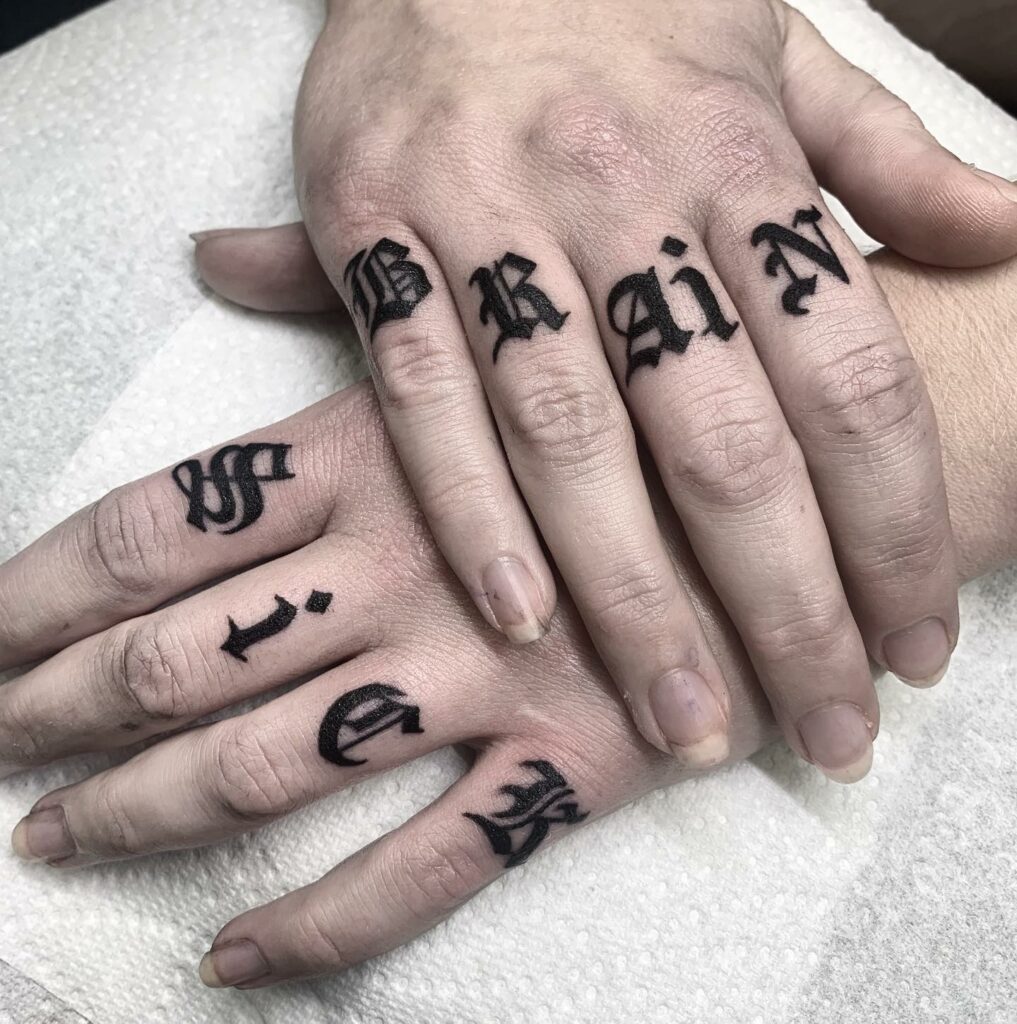
Old English font tattoos remain timeless symbols of grace and sophistication. They bring an enigmatic elegance to your skin. These designs capture the mystique of the past. Letters transform into captivating art.
Old English lettering traces its origins to the 12th century AD. This era was defined by knights, castles, monks, and handwritten manuscripts. Also called “Blackletter,” this font style evokes a sense of historical importance. Blackletter evolved directly from Carolingian Minuscule, the original English lettering style. Initially used mainly for religious texts, its application expanded. It now includes historical documents, grammar books, business records, and legal codes.
Johannes Gutenberg, the printing press pioneer, is surprisingly credited with Blackletter calligraphy’s origin. His invention transformed how we engage with written text. This font spurred Italian artists in the 1400s, resulting in the Gothic style. Blackletter became popular in early 1900s Germany. However, Adolf Hitler later rejected it, deeming it unfit for the supposed German racial superiority, and instead favored the Fraktur font.
In 2025, Blackletter script thrives in the digital realm, easily available to anyone online. Old English tattoos remain a popular choice, adorning arms, legs, and shoulders with timeless appeal. Modern tattoo artists leverage advanced Old English font generators to create custom designs that perfectly capture their clients’ visions.
Old English Font Tattoos With Butterfly
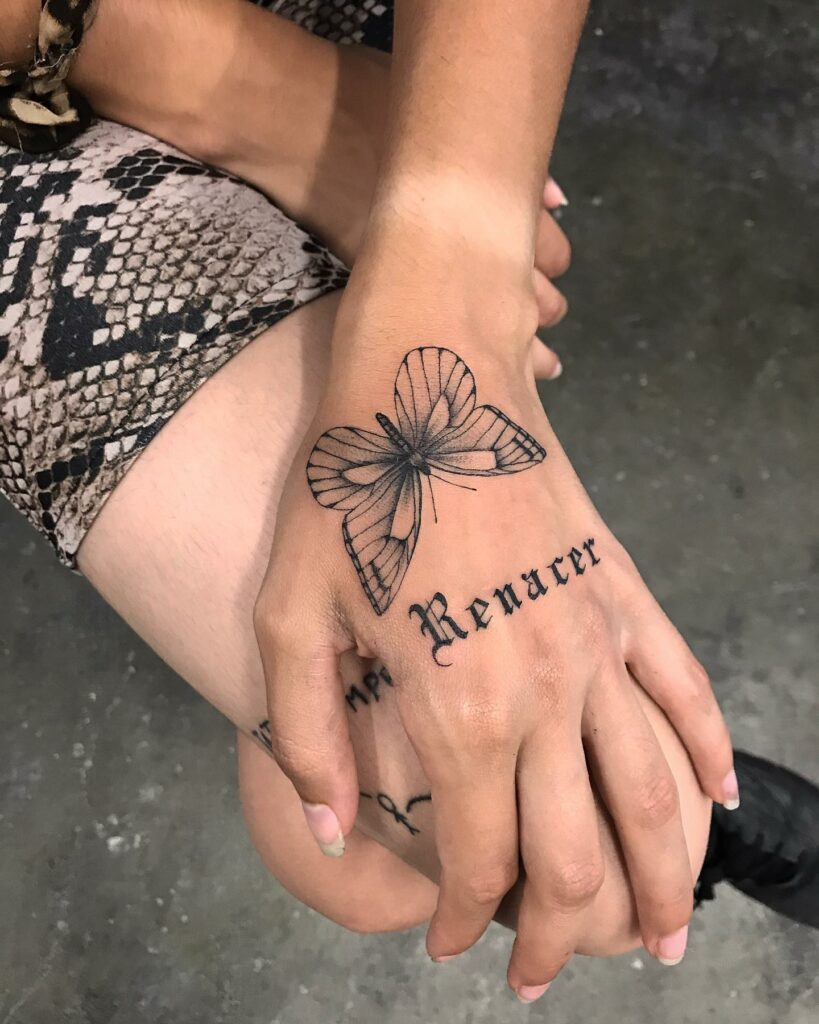
Tattoos that blend romance and symbolism create captivating designs. Consider the Chinese butterfly, a symbol of immortality, grace, and summer. Paired with Old English font, it becomes a truly unique tattoo. These designs celebrate femininity and the vibrancy of life. Placing this beautiful tattoo on the knuckles minimizes pain without sacrificing impact. This butterfly and Old English combination defies gender norms, showcasing beauty and symbolism for everyone.
Old English Tattoo Font With Snake
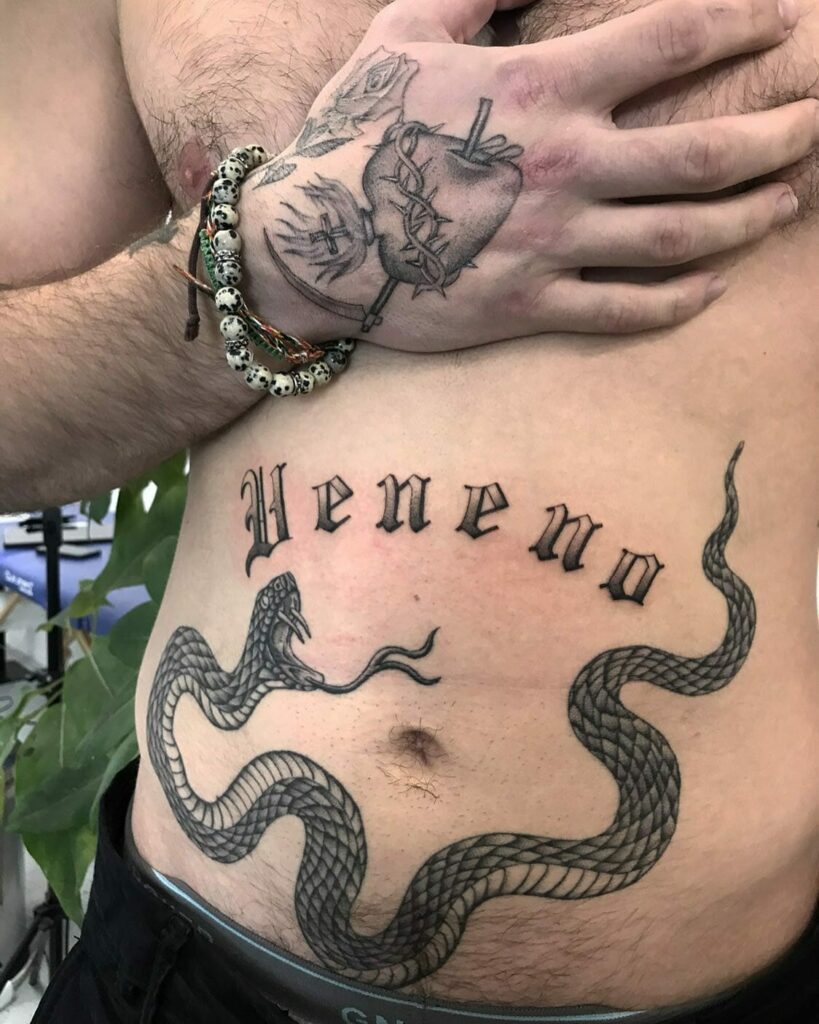
The Old English font holds a timeless appeal. When combined with a snake design, which often represents new beginnings and achieved goals, the effect is amplified. This striking blackletter font, alongside the symbolic snake tattoo, forms a compelling piece of body art. It captivates viewers with its undeniable beauty. Skilled tattoo artists expertly create these designs. They can be placed on areas like the stomach or chest. The result is always a stunning and impressive work of art.
Old English Font Tattoos Near Shoulder For Women
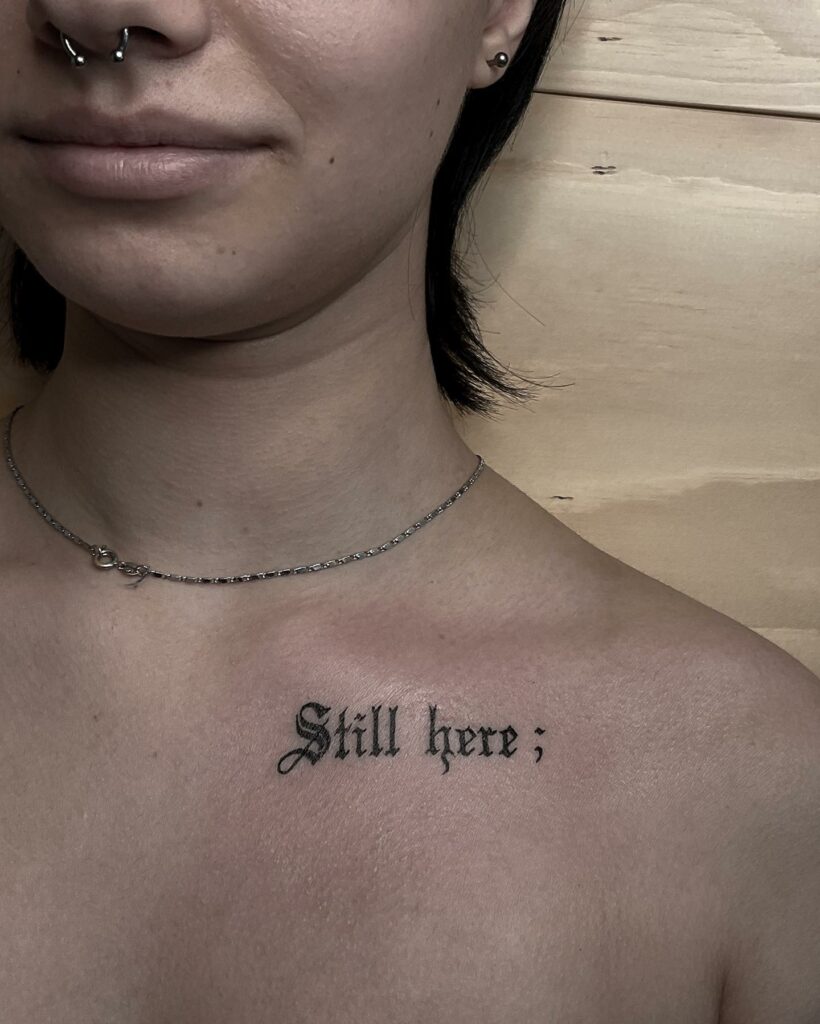
Shoulder tattoos frequently represent strength and resilience. Suitable for all genders, they look fantastic on anyone and often hold deep personal significance. A striking Old English font tattoo on a woman’s shoulder might narrate her battles, her ability to bounce back, and her unwavering spirit. These tattoos are incredibly expressive, showcasing a life’s journey and the wearer’s determination to overcome any challenge.
Old English Font Ankle Tattoo For Women
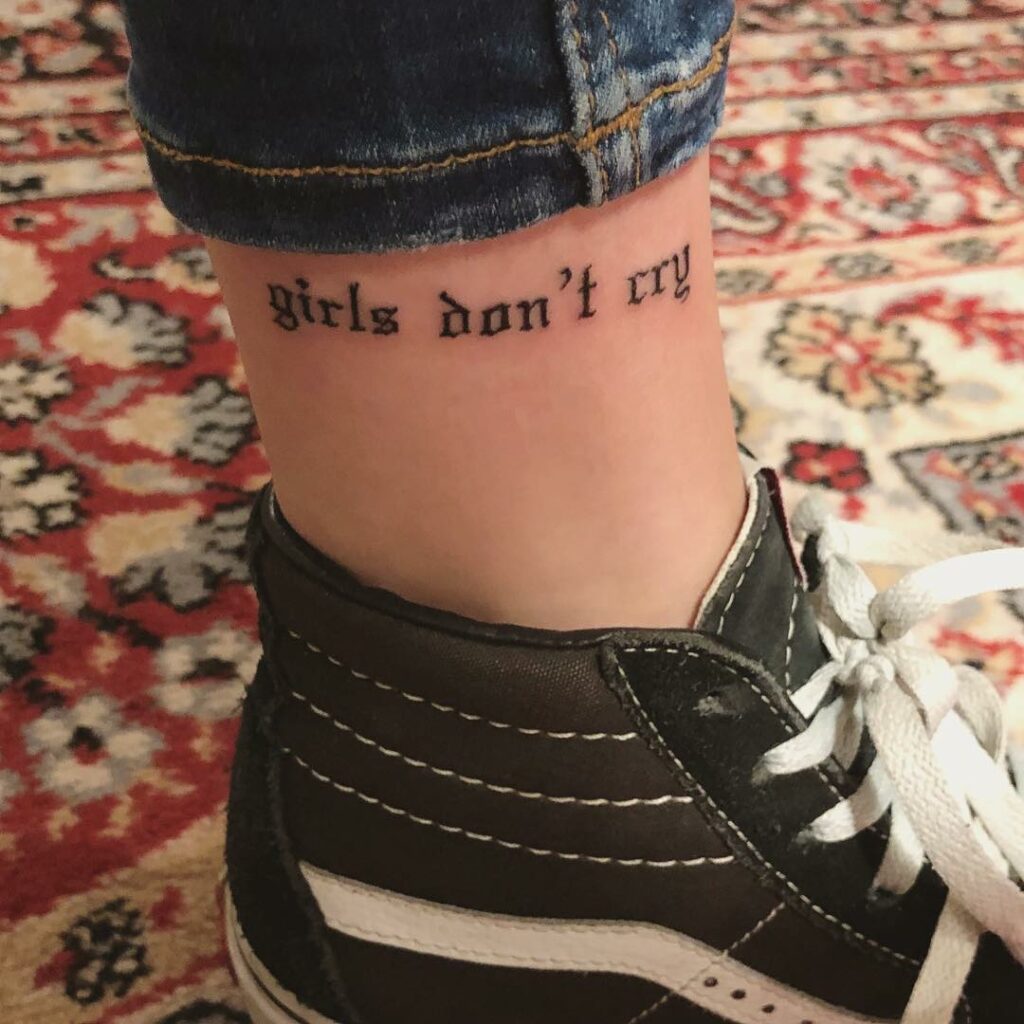
The ankle offers a subtle yet captivating space for minimalist tattoos. It’s a place to express your personality and share a personal narrative. While popular choices include flowers, anchors, and snakes, Old English fonts can also create a striking ankle tattoo. Consider a meaningful phrase like “girls don’t cry.” This design subtly highlights the wearer’s femininity and inner strength.
Old English Font Chest Lettering Tattoo For Men
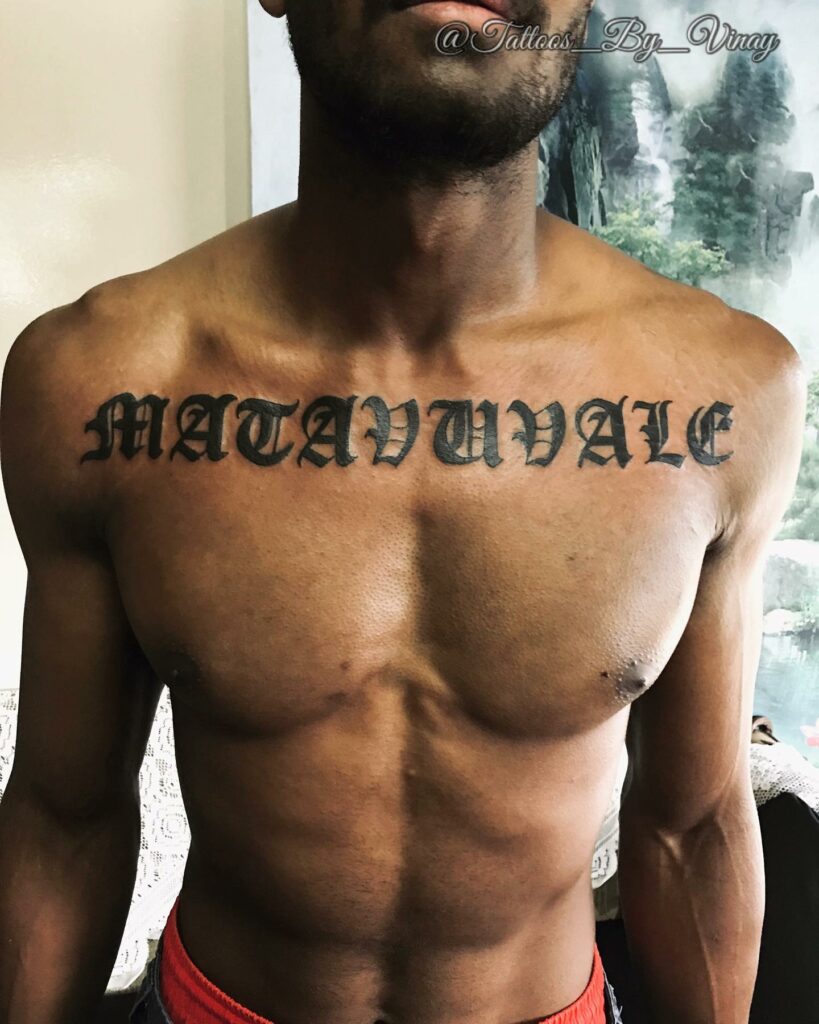
Chest tattoos remain a popular choice for men in 2025. They often symbolize strength and embody masculine ideals. An Old English font design across the chest can make a bold statement. While the execution isn’t always flawless, well-done chest tattoos can enhance a man’s perceived masculinity.
Above Elbow Tattoo In Old English Font Tattoo
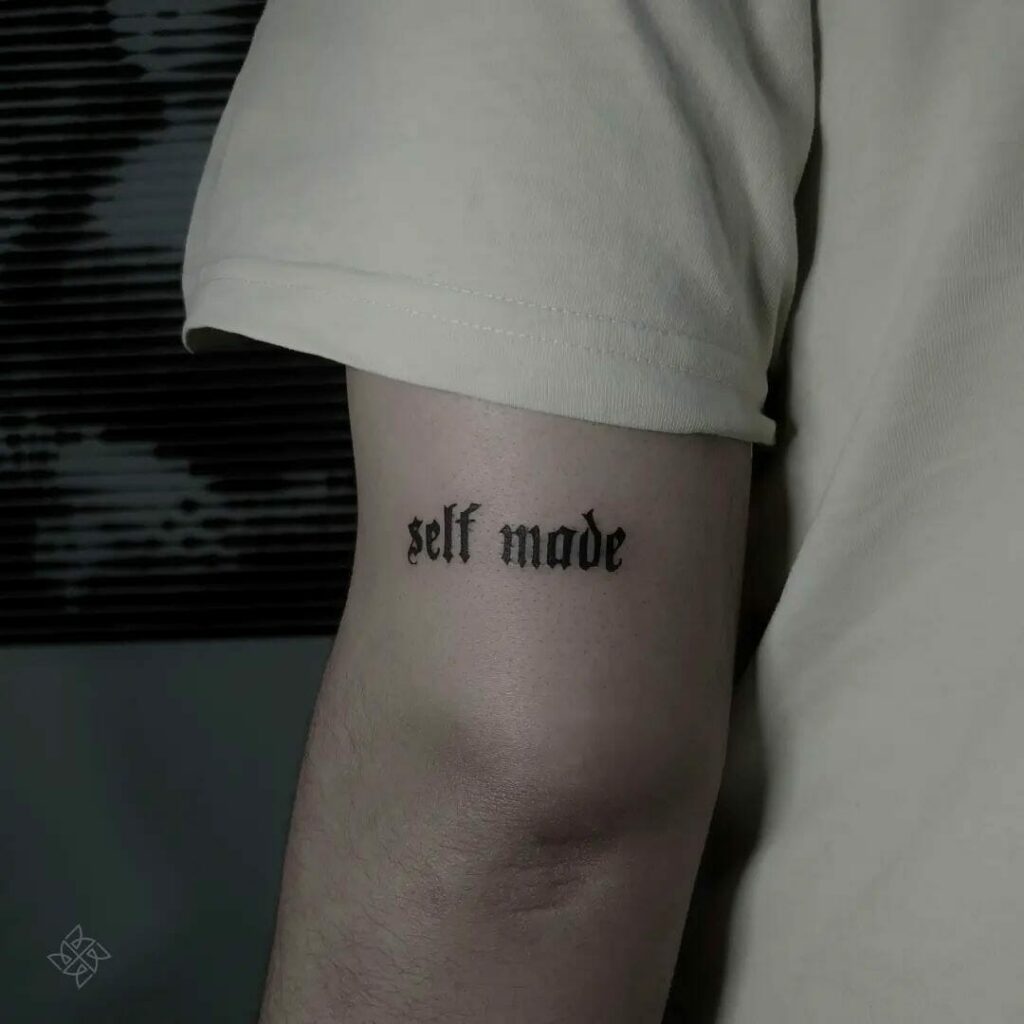
Elbow tattoos remain a favored option, partly because they’re considered less painful. A tattoo in Old English font, placed near the upper elbow, can convey a strong message. For example, the phrase “self-made” highlights the wearer’s independence and determination.
Bible Quotes In Old English Font Tattoo
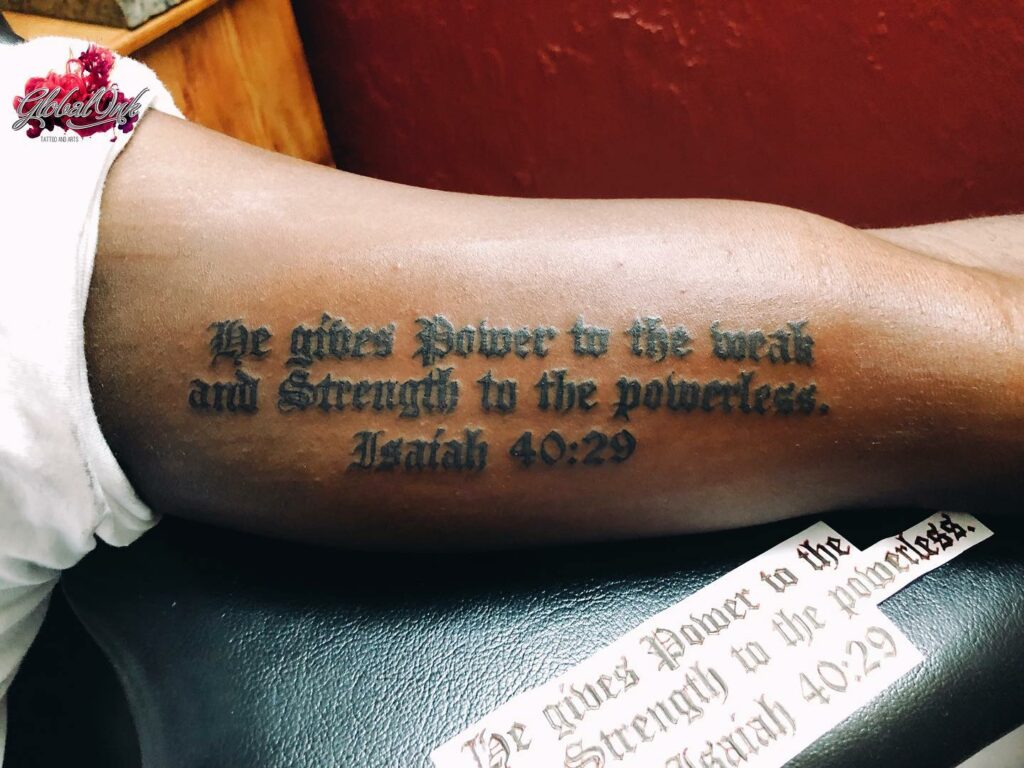
Biblical quote tattoos are a powerful expression of faith. The Old English font style adds a touch of timeless elegance and deep spiritual significance to these designs.
Old English Font Finger Tattoo
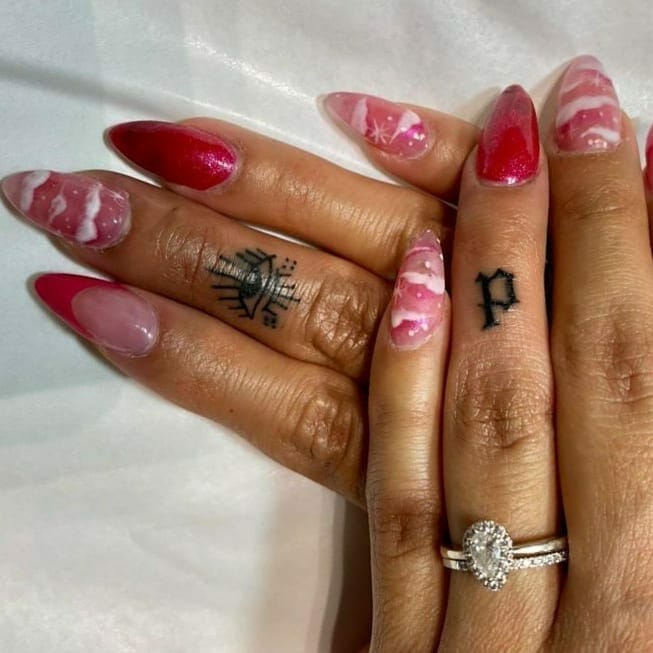
Finger tattoos remain a trendy and understated way to express yourself in 2025. A simple Old English letter on a finger showcases elegant minimalism and often sparks curiosity and discussion.
Lotus Cursive Old English Font Tattoo